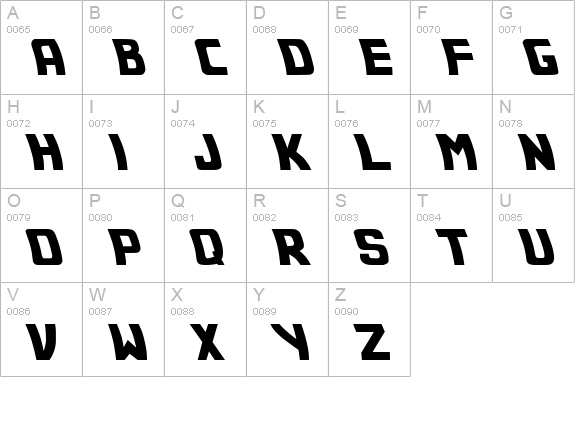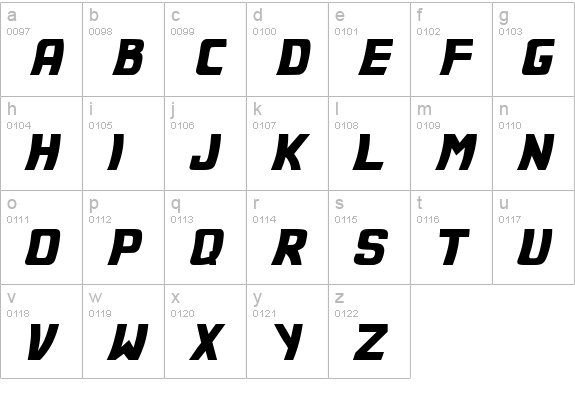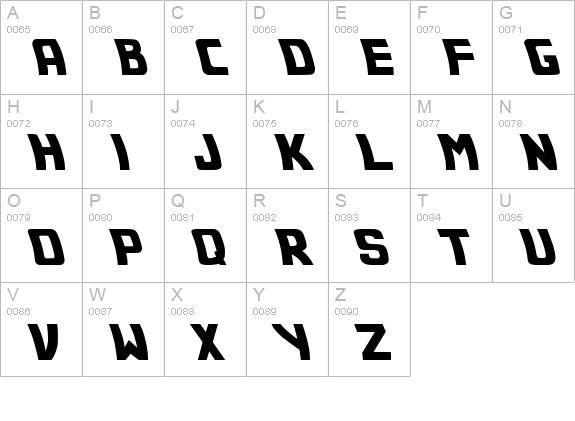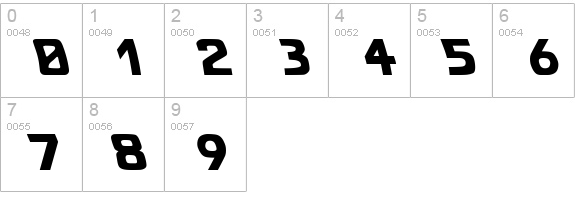
Introducing the Back to the Future 2002 font, a nostalgic tribute to the beloved movie franchise that has captured the hearts of generations. This font effortlessly combines the futuristic essence of the iconic film with a contemporary twist, making it the perfect choice for those seeking a touch of both past and present in their designs. Crafted with meticulous attention to detail, the Back to the Future 2002 font features sleek lines, bold strokes, and a distinct retro-futuristic style that transports you back in time to the thrilling adventures of Marty McFly and Doc Brown. Its versatility allows it to be used in a wide range of creative projects, from movie posters and book covers to branding materials and website designs. What makes this font even more extraordinary is that it is freely available to download at FontsMarket.com. Yes, you heard it right! This remarkable typeface can be yours without any cost, enabling you to bring a touch of nostalgia to your designs without breaking the bank. Whether you're a graphic designer, a movie enthusiast, or simply someone who appreciates quality typography, the Back to the Future 2002 font is a must-have addition to your collection. So, why wait? Embark on a journey through time and space with the Back to the Future 2002 font. Download it for free at FontsMarket.com and let your creativity soar to new heights. Embrace the magic of the past, the excitement of the future, and the limitless possibilities that this remarkable font brings to your designs.